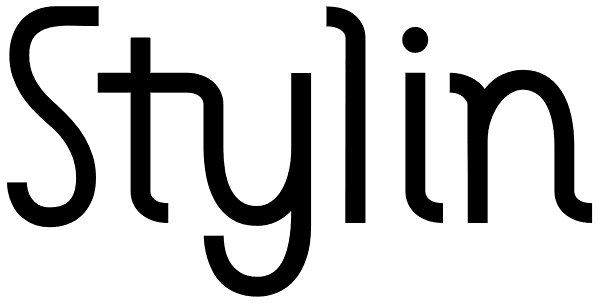
Stylin
Stylin is…stylin! It’s unique in that some of the letters join together where you wouldn’t expect (mostly at the top of the letters). Stylin is very legible at small sizes and is great for body copy, falling somewhere between a monoline sans serif...